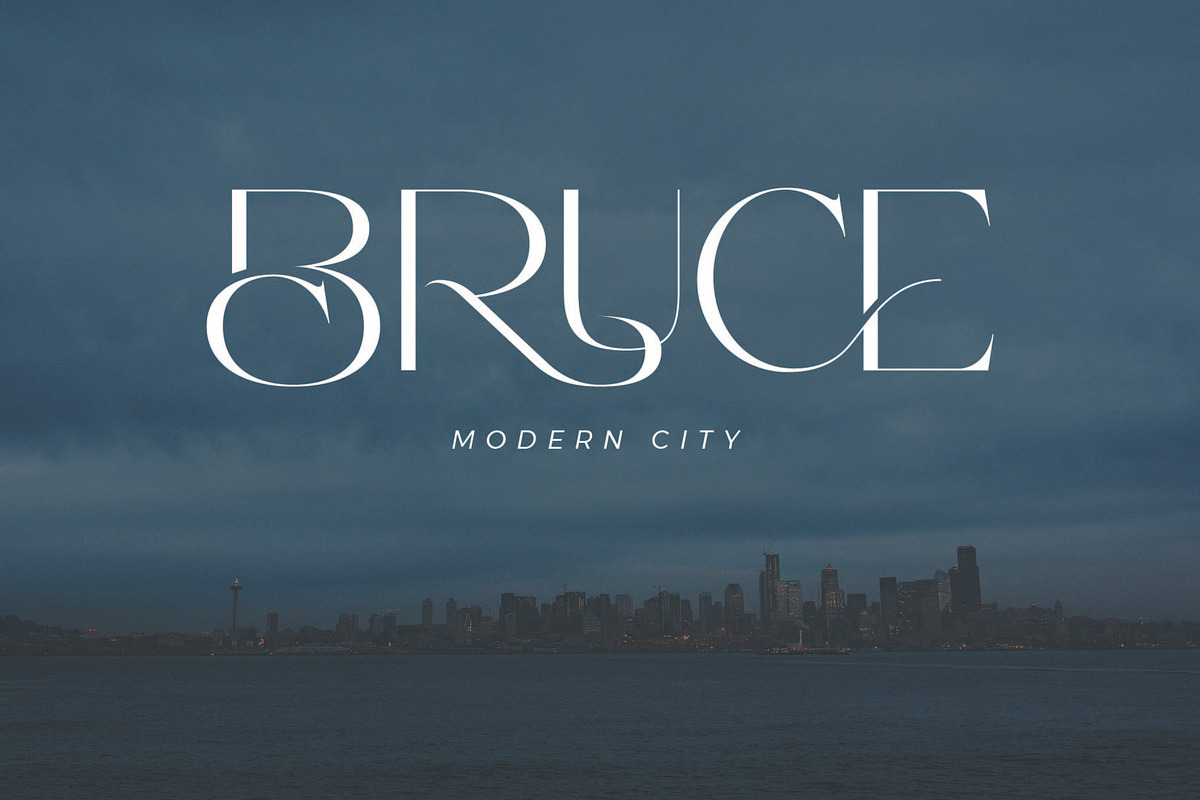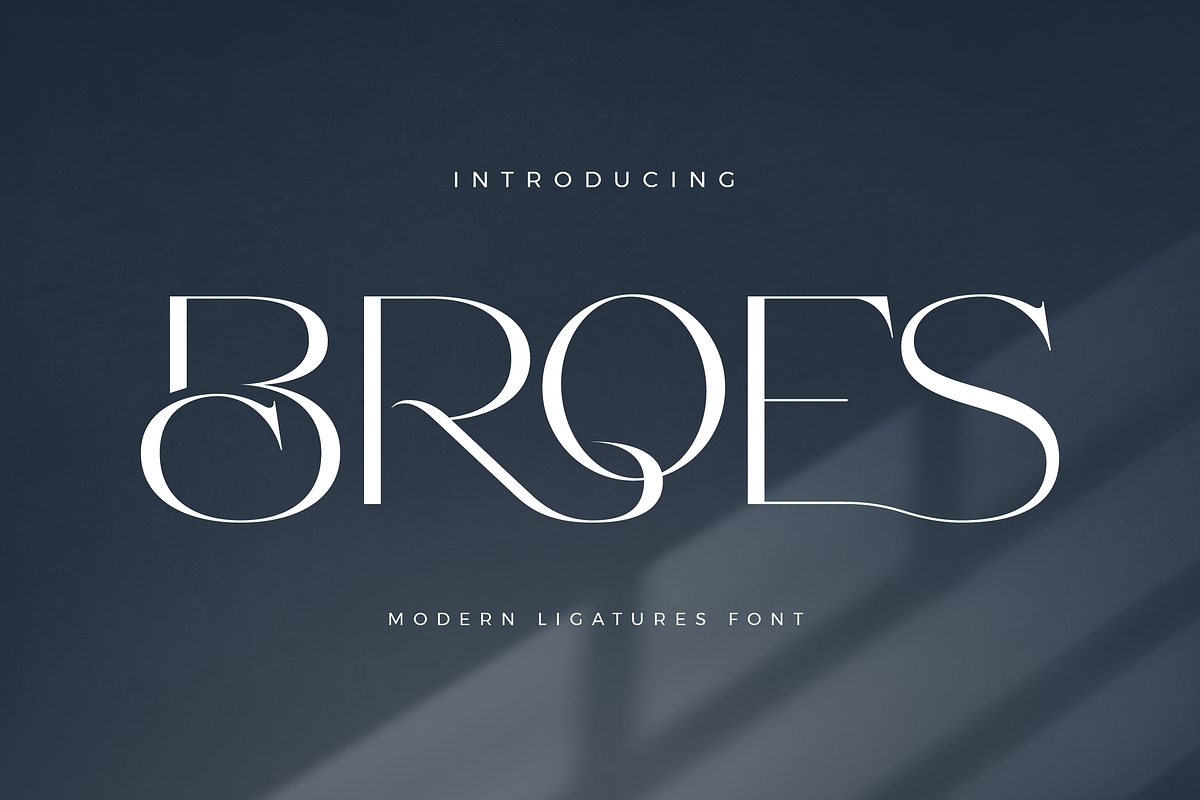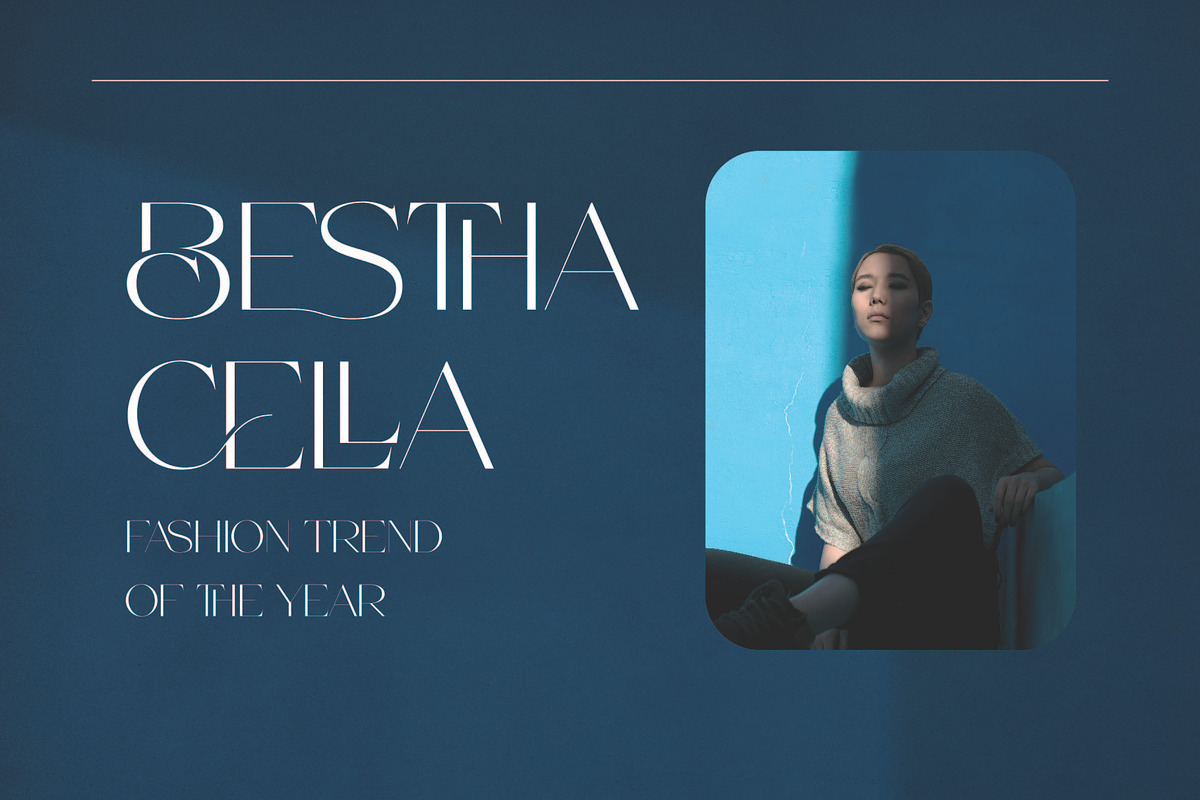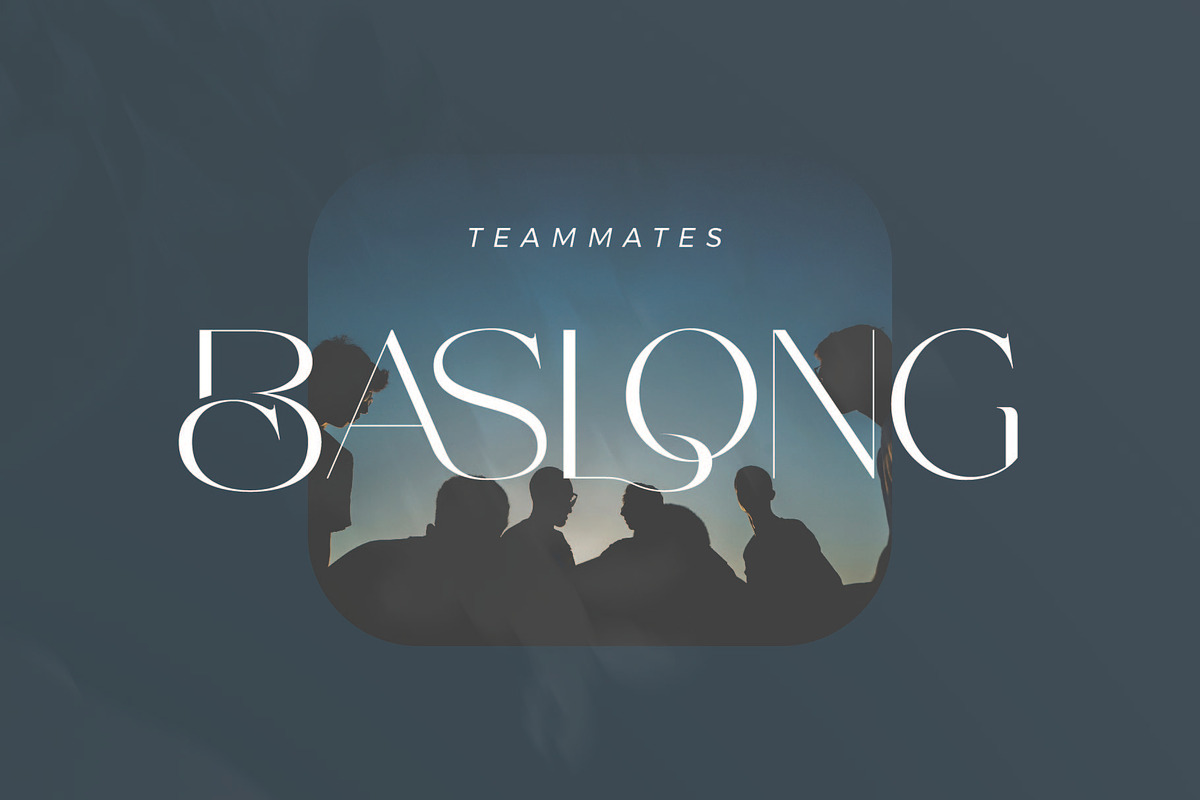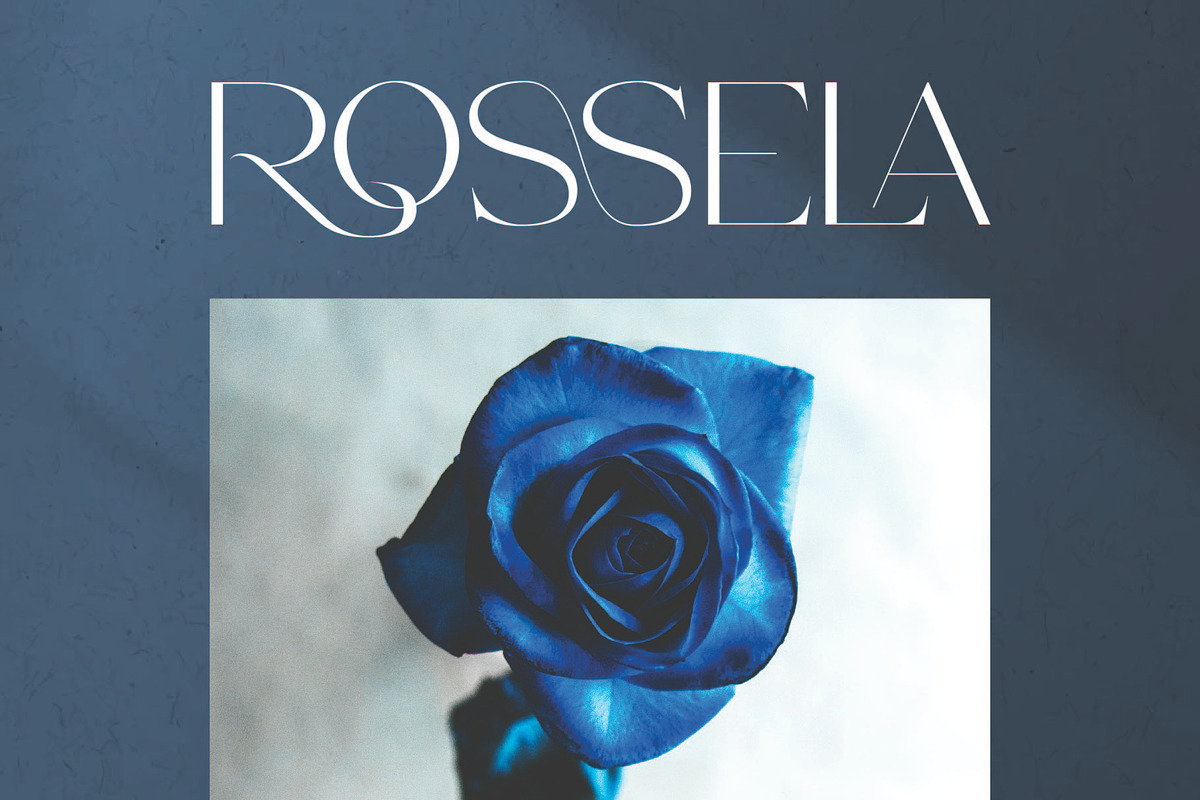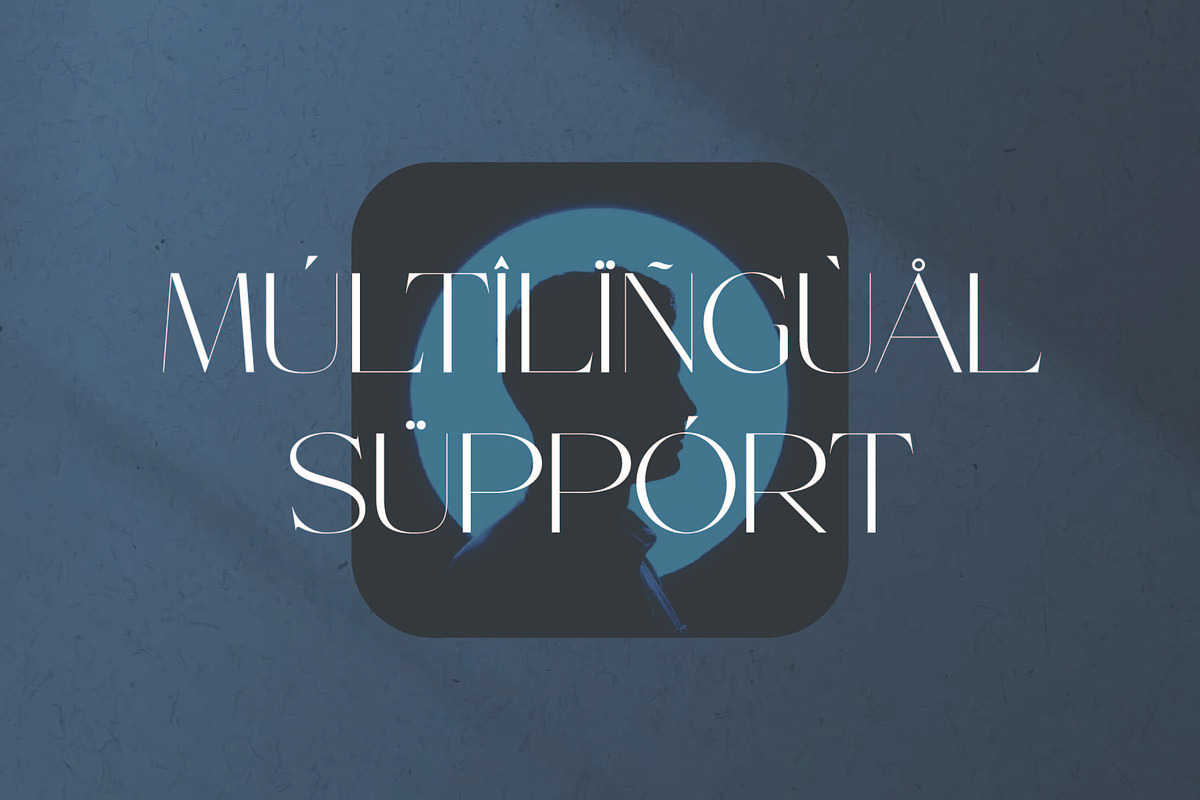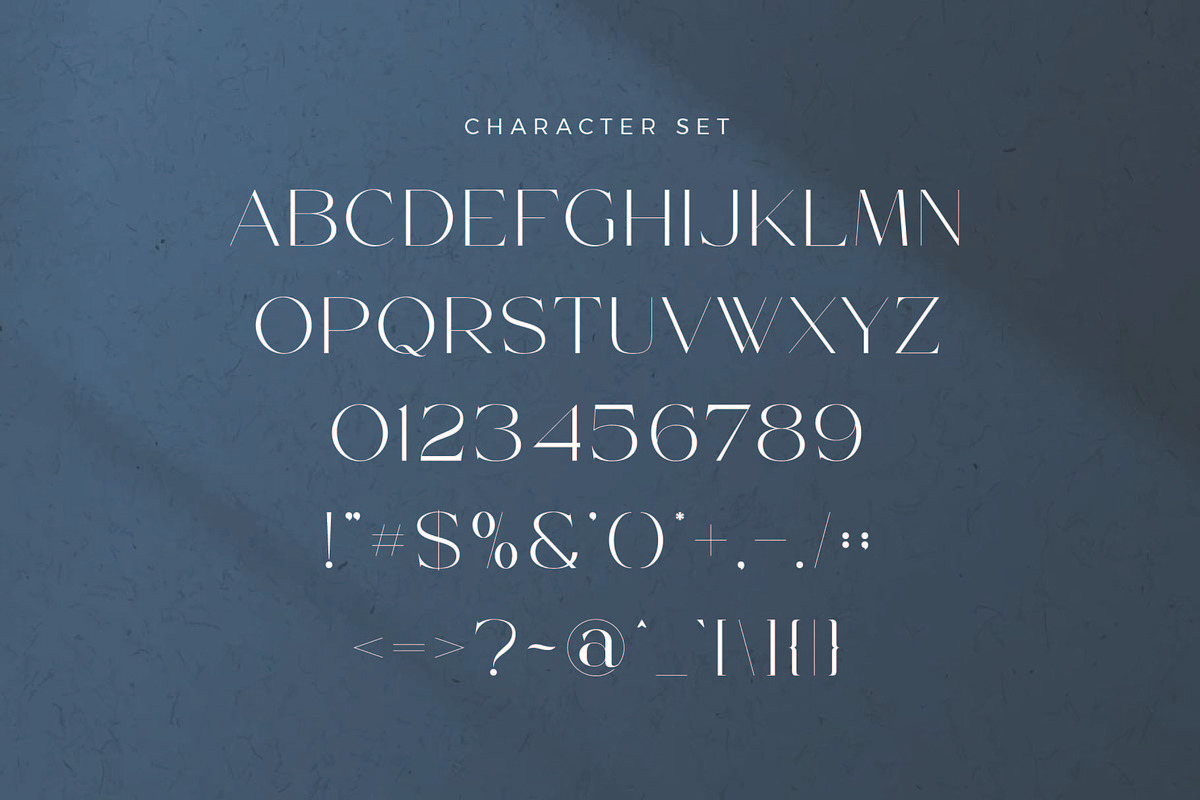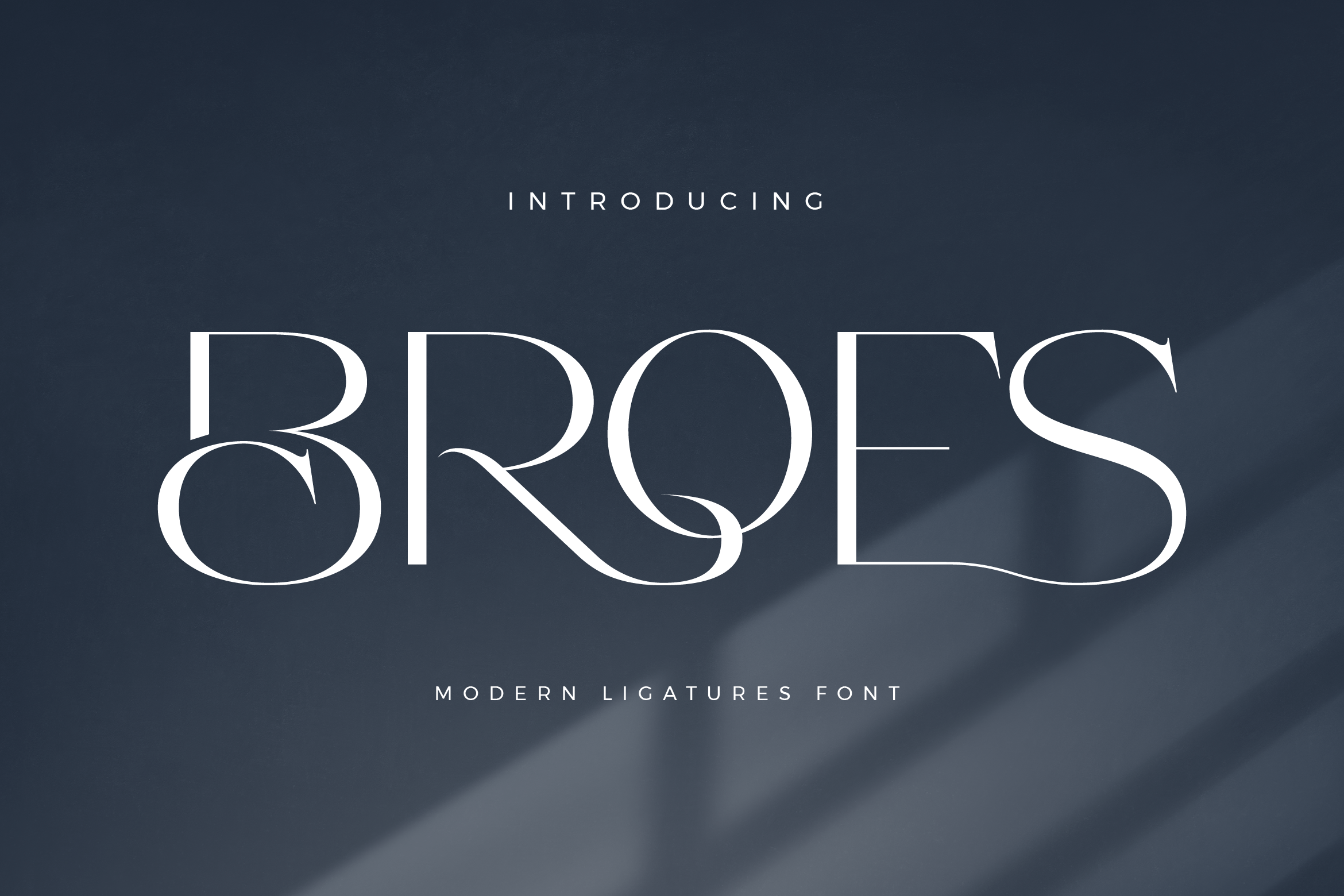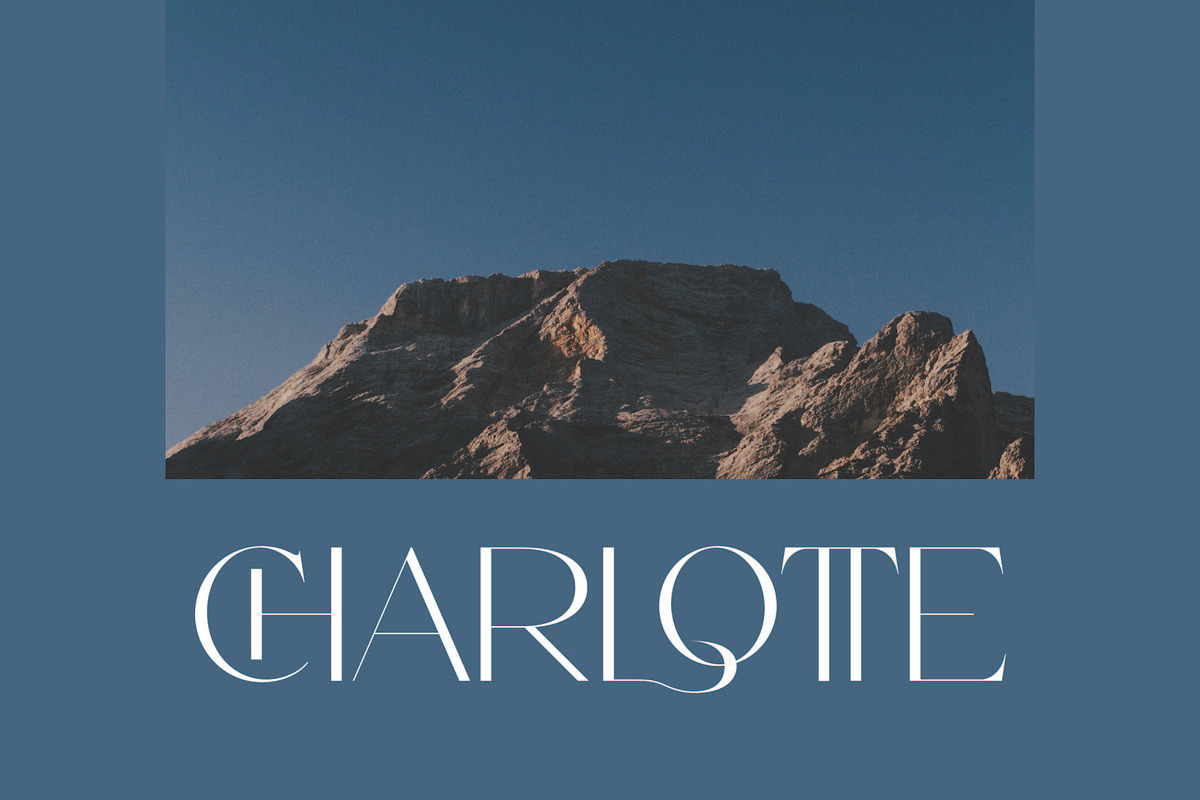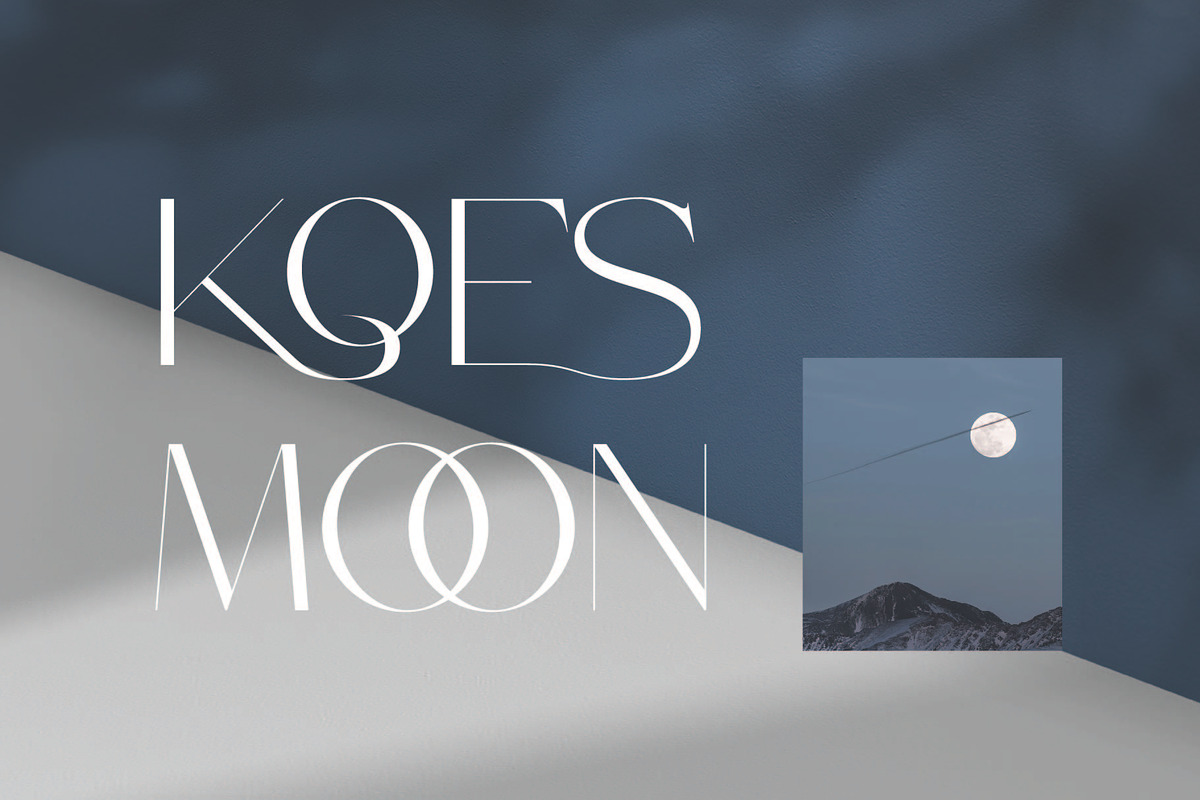
Broes - Modern Sans Font
Broes Sans Font Typeface inspired by the famous minimalist logo perfect for the purposes of designing templates, brochures, videos, advertising branding, logos, invitation, layout design, elegant crafting, beauty design and other.